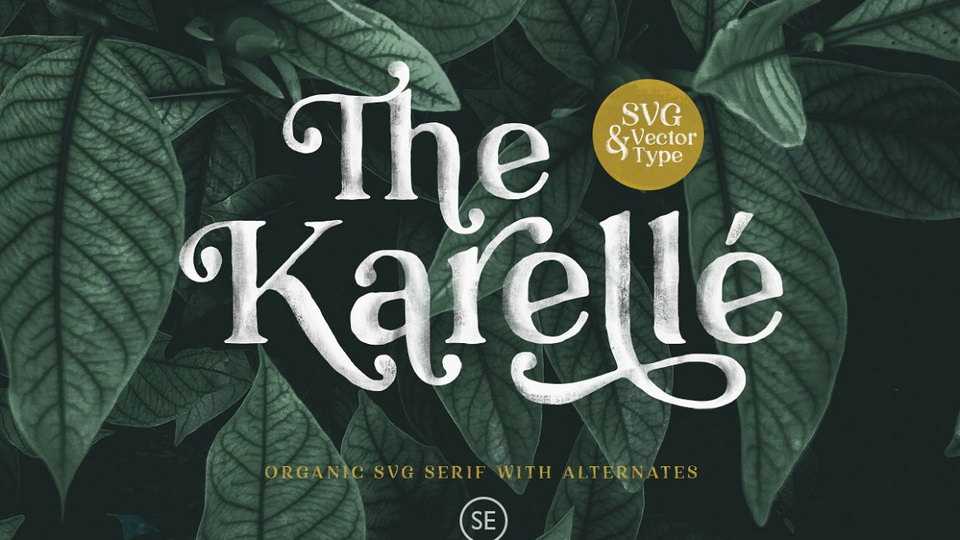
Download Karelle font, an organic serif typeface with a natural hand painted feel and a lot of decorative elements. Let Karelle font make your project even more raw and natural!